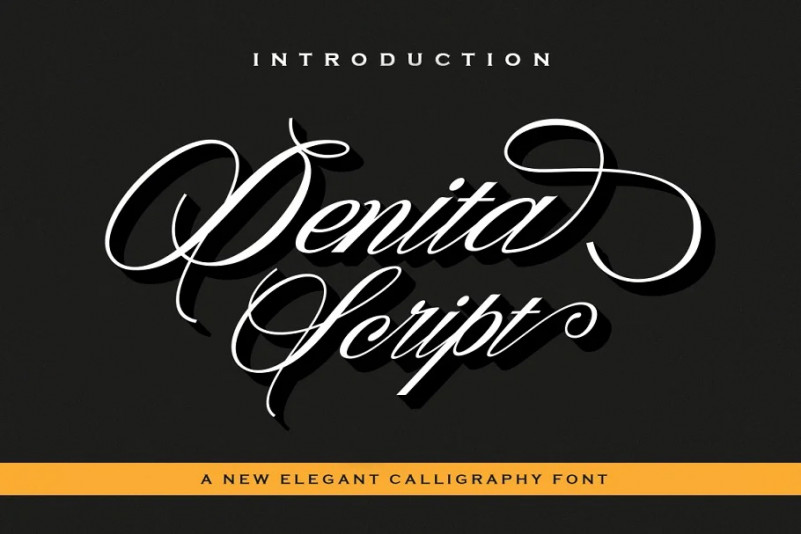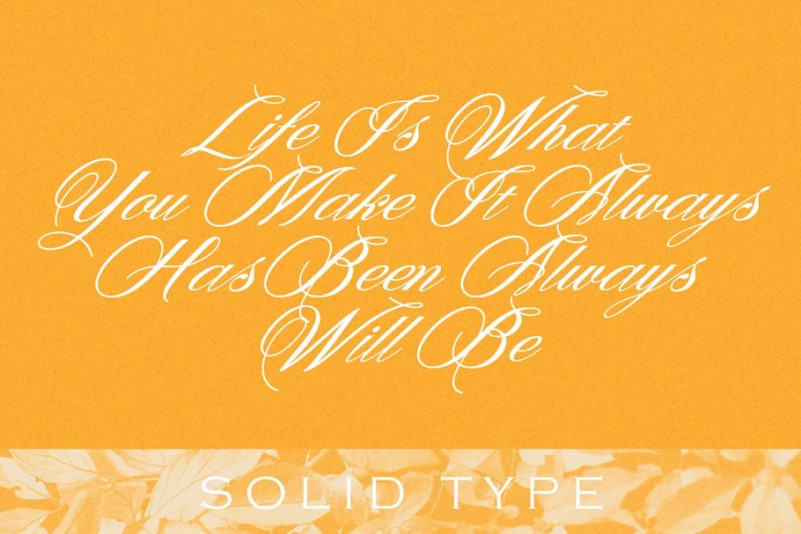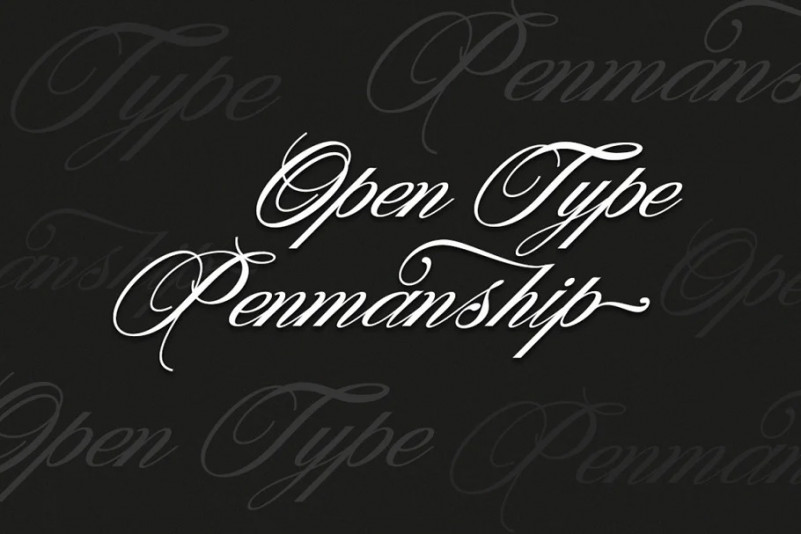
Denita Script Typeface
Denita Script Font
Denita Script is highly legible calligraphy font, a simply beautiful, classy and elegant typeface. Can be used for various purposes.such as logos, wedding invitation, t-shirt, letterhead, signage, news, posters, badges etc. Denita Script features Opentype with alternate characters, including initial and terminal letters, alternates, ligatures and multiple language support.